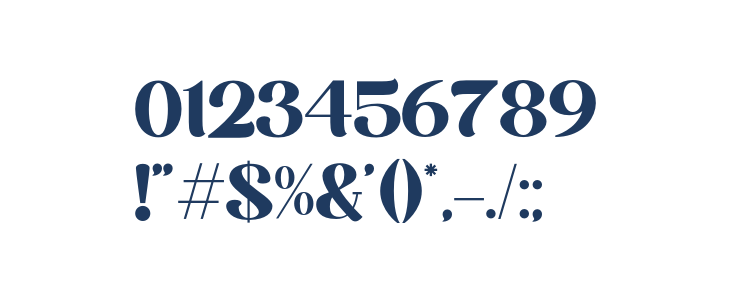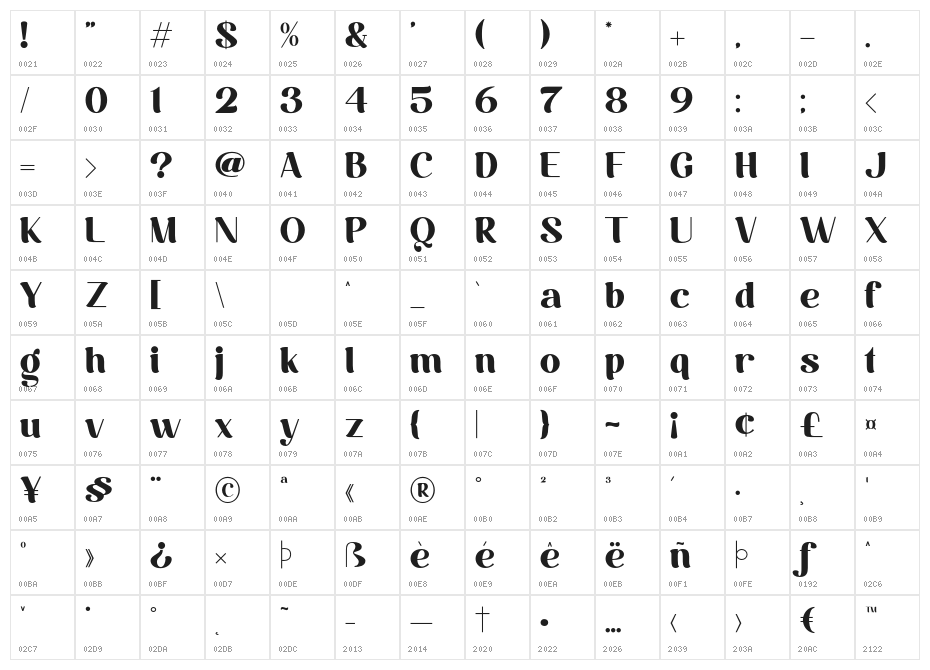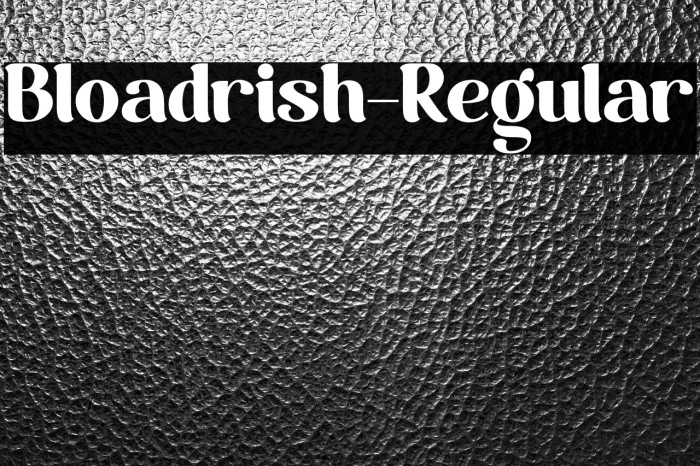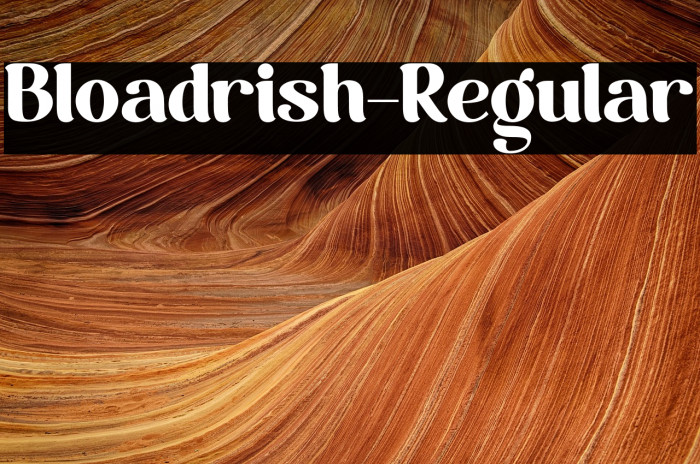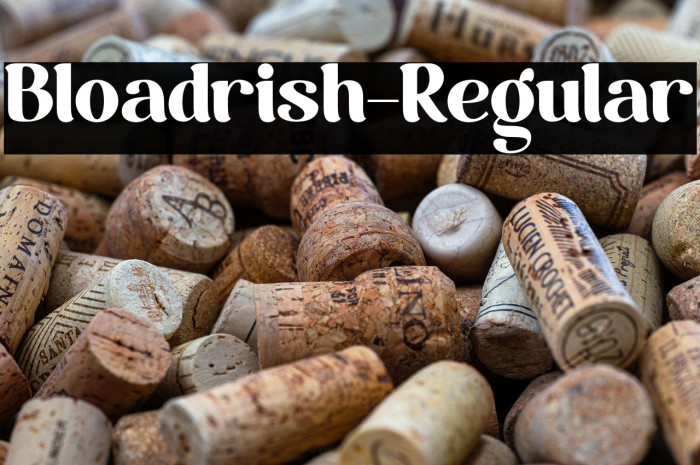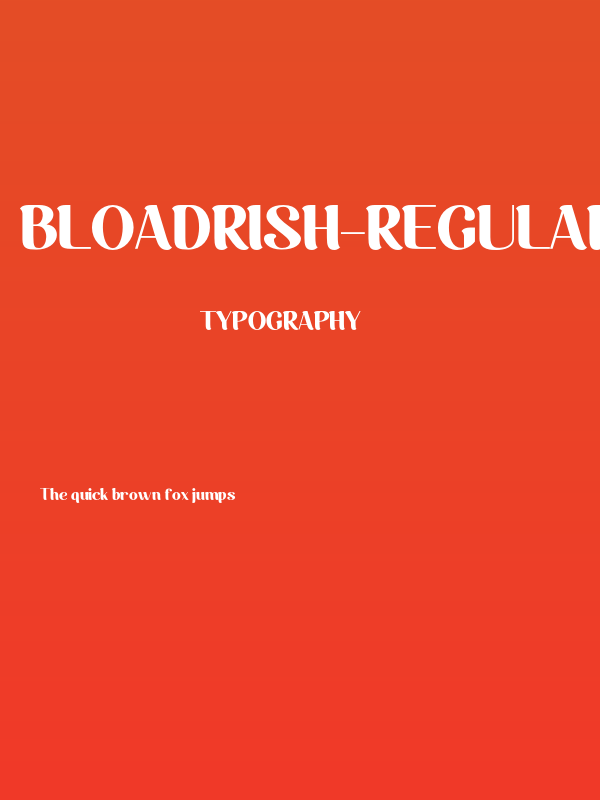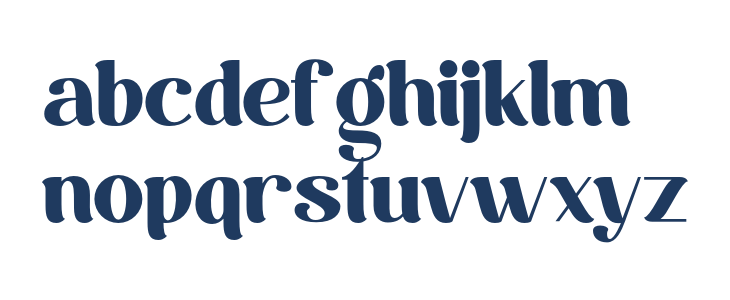
Bloadrish-Regular Font
Bloadrish-Regular Description
This font features a bold and expressive style with high contrast between thick and thin strokes. The uppercase letters exhibit a strong presence with their wide, rounded forms, while the lowercase letters maintain a playful and dynamic appearance. The numerals are equally bold, ensuring readability and impact. Special characters are designed with a unique flair, adding to the font's overall decorative appeal. The combination of thick strokes and rounded edges gives it a modern yet slightly retro feel, making it suitable for a variety of creative applications.
ContrastHigh
Overall StyleModern, Decorative
Use CaseHeadlines, Logos, Posters
Proposed ProjectsIdeal for branding, poster design, headlines, and creative projects that require a strong visual impact.